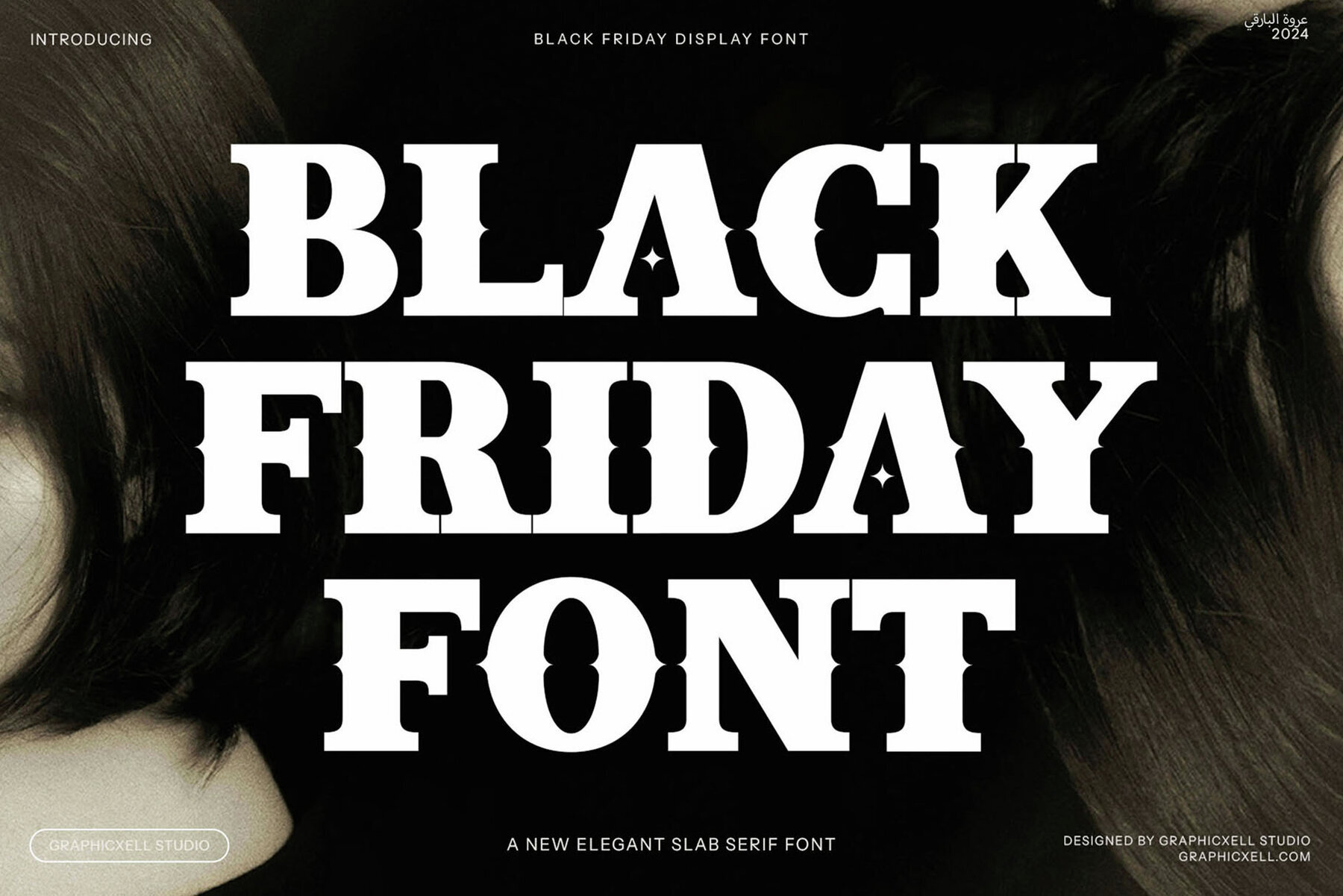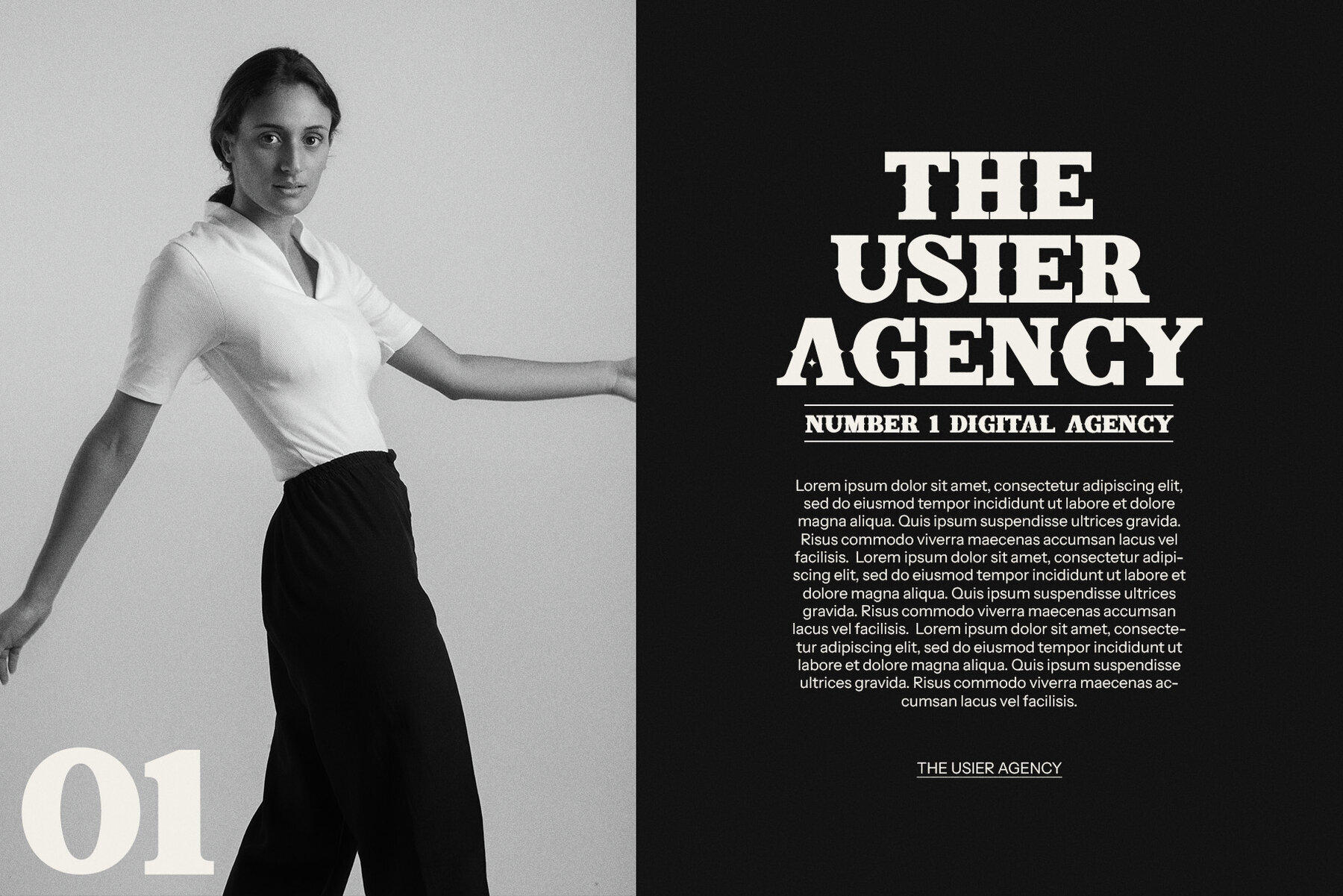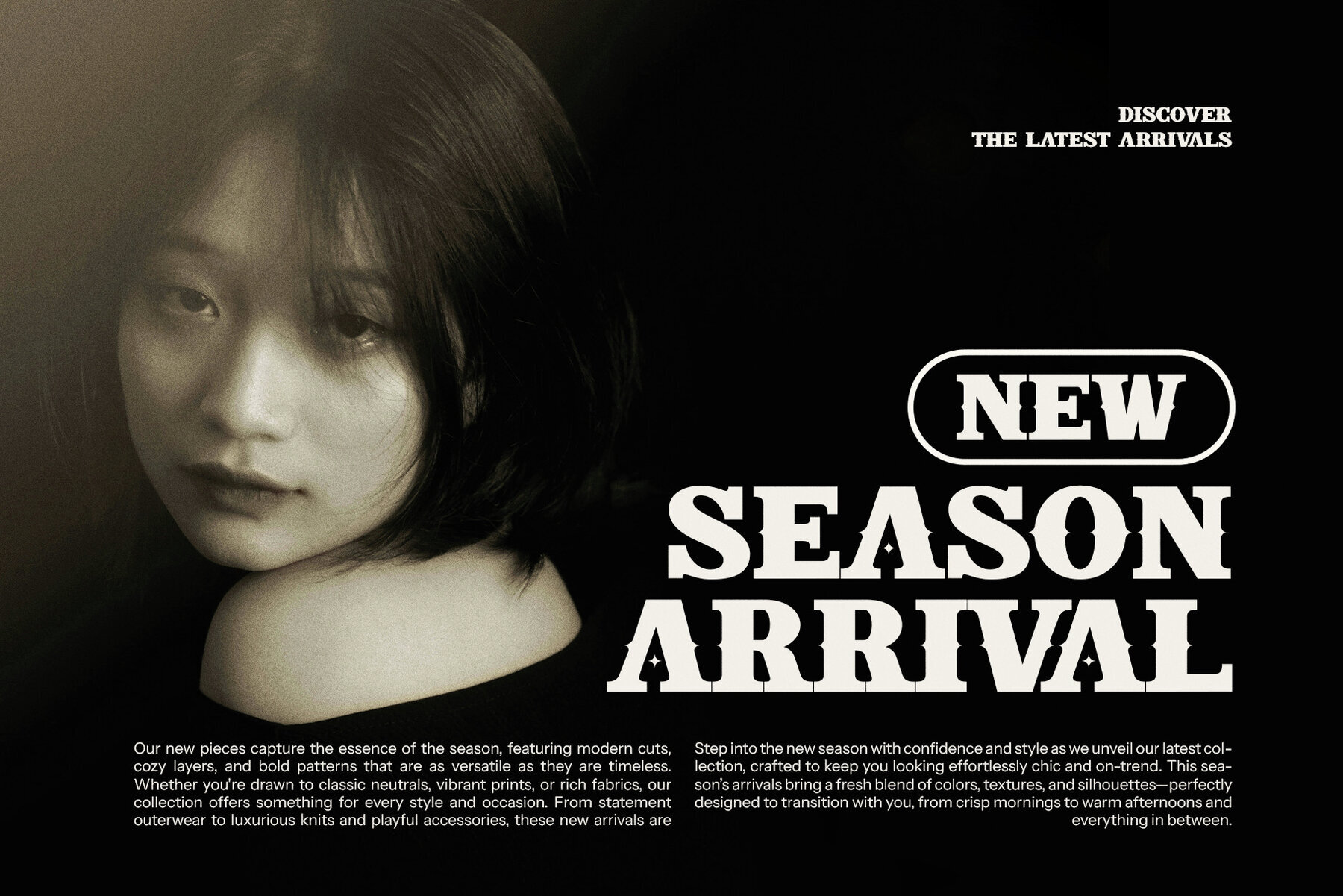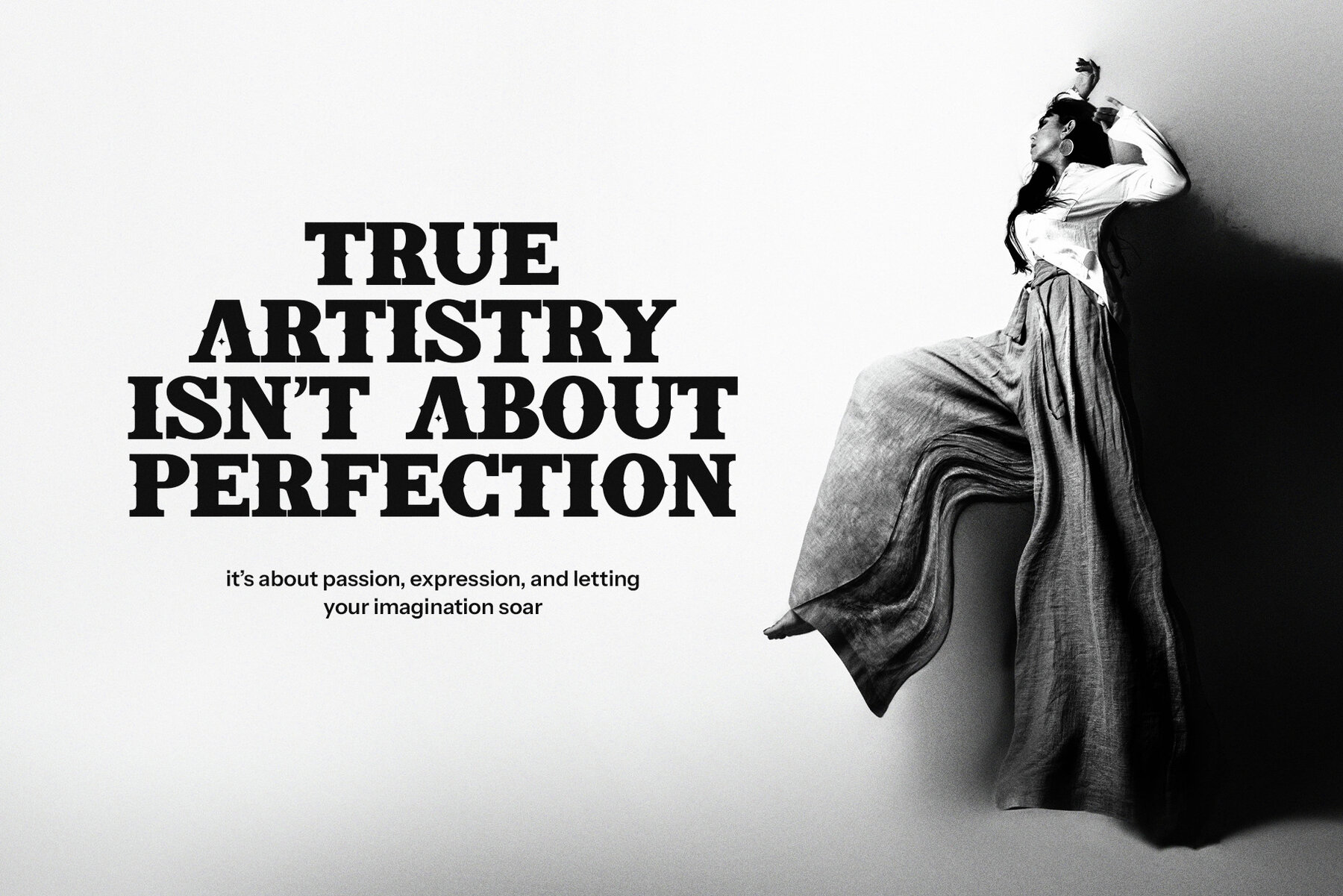
Black Friday Font
Black Friday
Introducing an impressive slab serif typeface that blends boldness with sophistication. Its unique sharp corners and star-shaped decorative details command attention yet retain a refined vintage allure. The strength of its slab serifs imparts a grounded, confident presence, while whimsical star accents add elegance, making it ideal for both modern and nostalgic design endeavors. This font captures attention in Black Friday promotions, seasonal marketing materials, and sophisticated branding while infusing your message with strength and beauty. Its geometric sharpness paired with ornamental details ensures excellent legibility and character in display applications, from logos to large-format prints and advertisements.
Its versatility shines across various uses, from premium food packaging and magazine layouts to exquisite New Year greetings and festive promotional campaigns. The vintage-inspired aesthetic of this typeface enhances the visual appeal, ensuring your project feels timeless yet contemporary. It strikes the perfect balance between structure and elegance, adding a sense of occasion without dominating your work. Whether used for major sales events, luxury branding, or celebratory advertising, this font elevates ordinary text to create memorable designs.